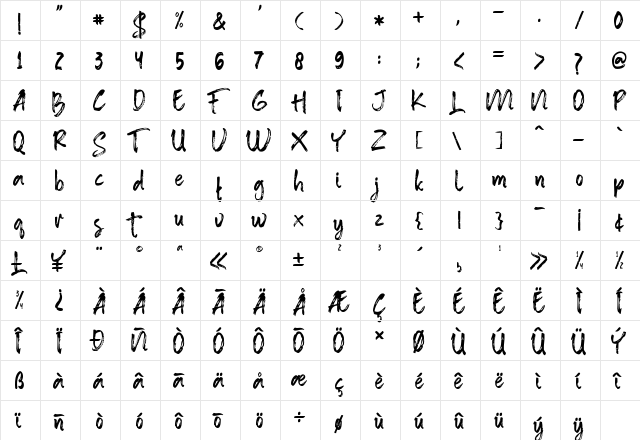
Anther Brush Regular
| Foundry | Akifatype Studio |
| Designer | Khaled |
Design Context for Anther Brush Typeface
Anther Brush flows with the natural rhythm of handwritten lettering, making it ideal for designs that call for warmth and personal expression.